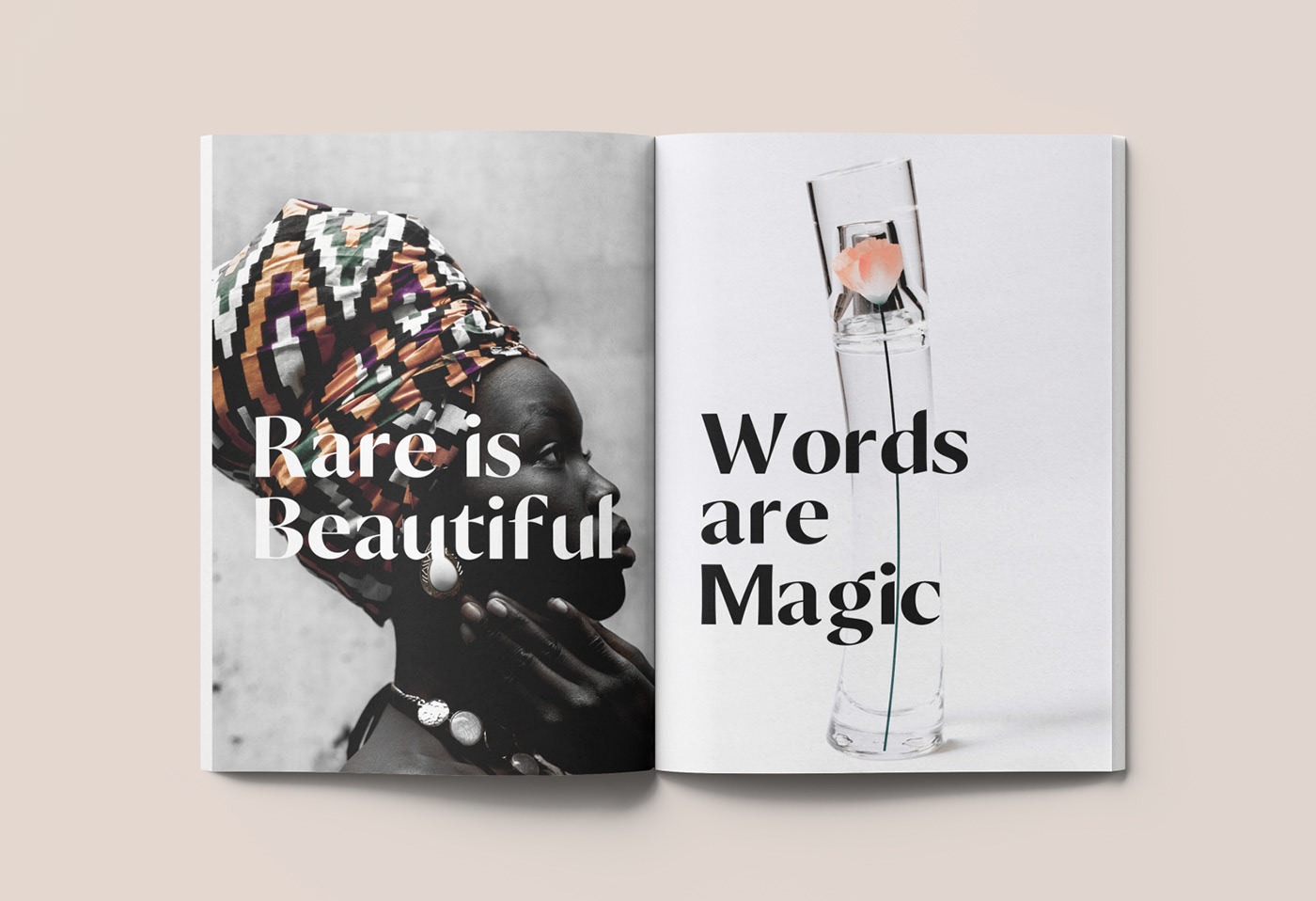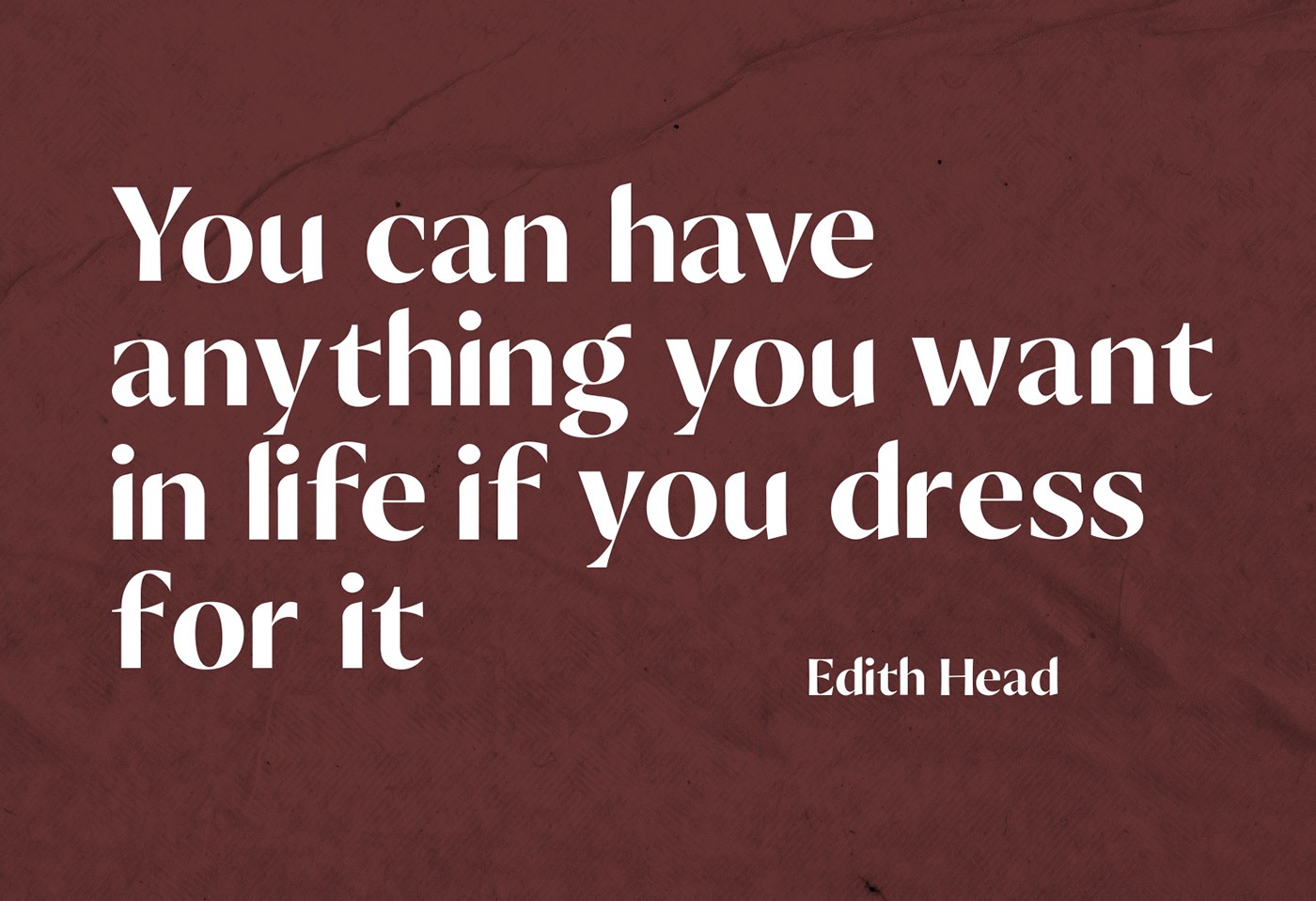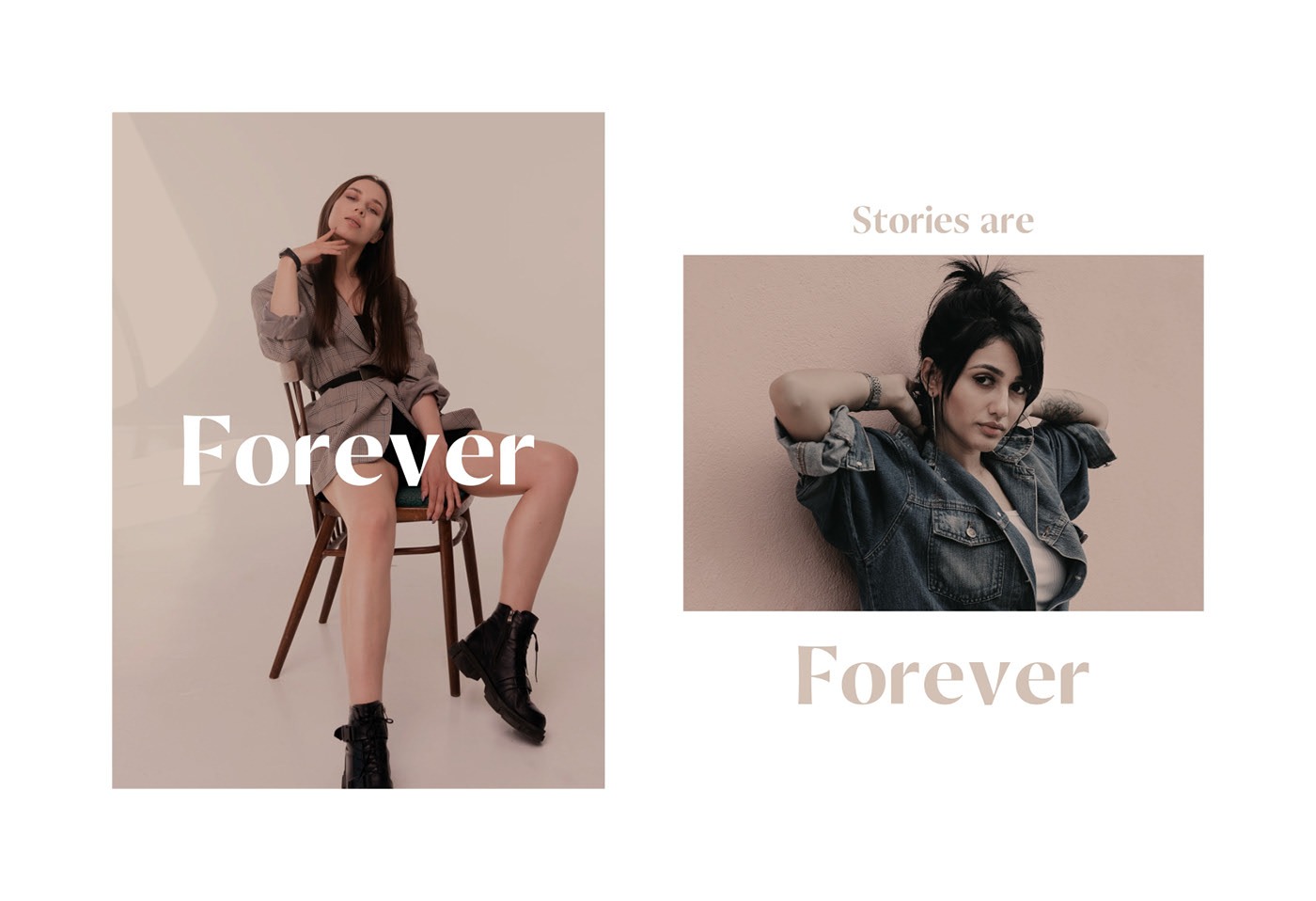
Xillian Sans Serif Font
It’s a clean variable sans serif typeface for your Design that is fit for your next creative projects. Made from font designer named Tanveer Khan. Xillian is a display typeface, specially designed for haute couture projects, perfectly suitable for creating fashionable, bold design such as title, magazine, social media, and more.